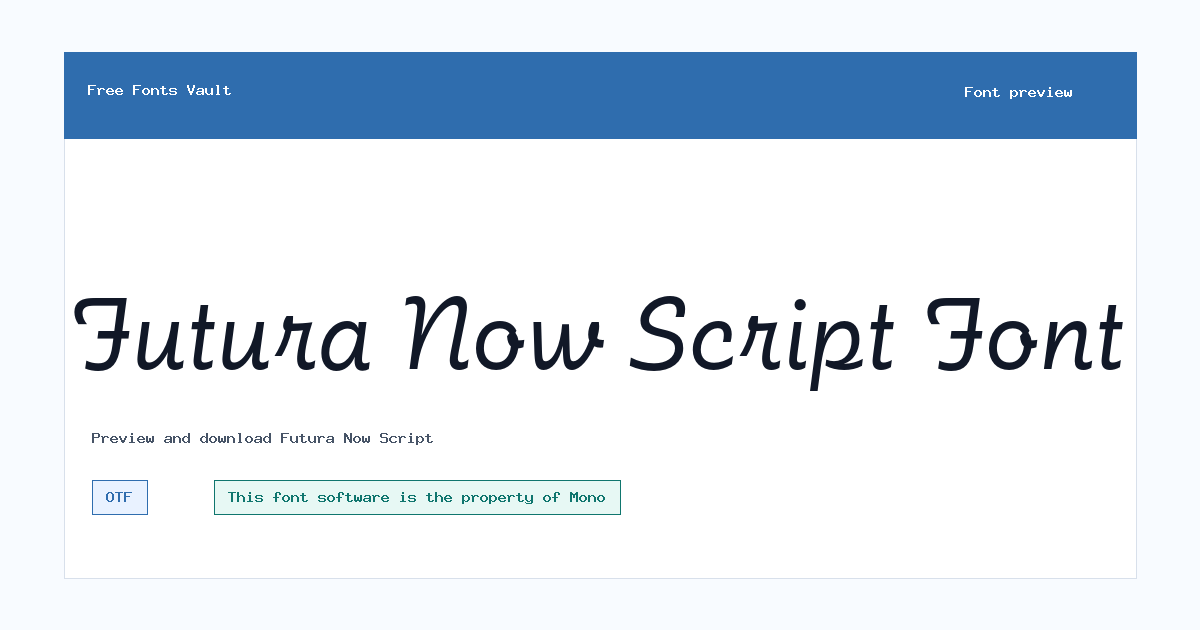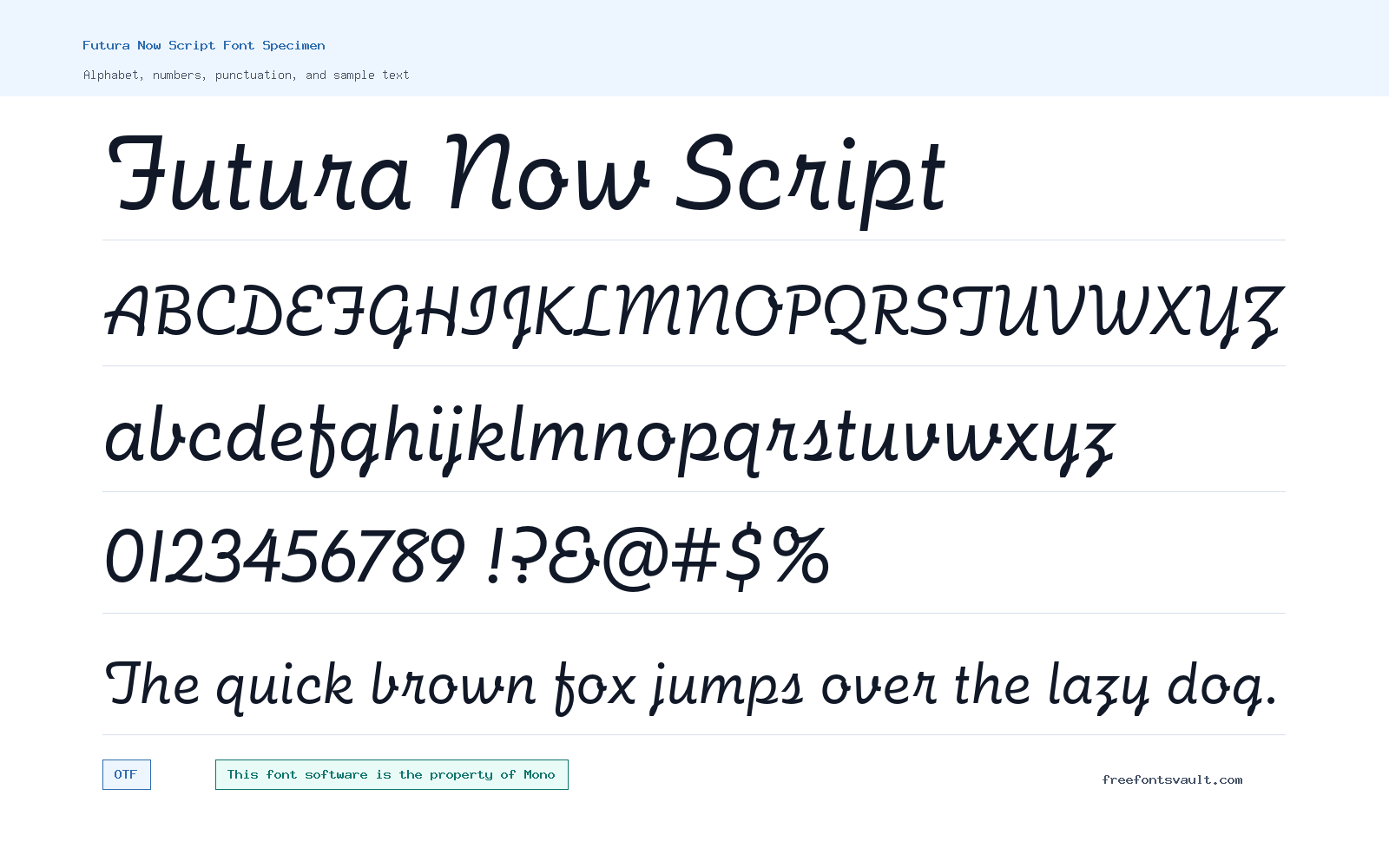
Futura Now Script
Futura Now Script Font
Futura Now Script is a smooth monoline script style connected to Monotype's Futura Now family. It keeps a handwritten feel while staying more controlled and geometric than many casual script fonts.
About Futura Now Script
Futura Now was created by Monotype as a modernized and corrected expansion of the Futura family, with attention to digital use, spacing, weights, and the broader history of Futura. The Script style brings back one of the less common Futura offshoots rather than copying the straight geometric sans look. Its letters have a steady stroke, soft curves, and a cleaner rhythm than brush or calligraphy fonts.
Use Futura Now Script when you want a warmer accent beside a structured sans serif. It can work well for elegant branding touches, invitation-style headings, packaging labels, editorial pull quotes, and short display lines. Keep it for names, titles, and brief phrases. For long paragraphs, pair it with a readable sans serif and let the script handle the expressive part.
• Monoline handwriting look that softens Futura's geometric character.
• Best used as a display or accent face rather than body text.
• Works well when contrasted with clean geometric sans text.
• Elegant brand accents
• Invitation-style headers
• Packaging and label typography
• Editorial pull quotes
• Short social graphics or display text
Futura Now Script is credited to Edwin Shaar, Steve Matteson, Juan Villanueva, and the Monotype Studio, with Monotype Imaging Inc. listed as the foundry.
Test your exact words in the preview before using the font. Script fonts can change feel quickly depending on capitals, spacing, and word length. Keep line lengths short, add generous breathing room, and avoid using all caps unless the preview proves it reads clearly. If you are matching it with the wider Futura Now family, let the script handle one expressive line and keep the supporting typography quieter. That contrast is where the style usually feels most intentional.
What type of font is Futura Now Script?
It is a monoline script font with a controlled handwriting style. It is softer than Futura's geometric sans styles but still feels clean and orderly.
Who designed Futura Now Script?
The credited names are Edwin Shaar, Steve Matteson, Juan Villanueva, and the Monotype Studio.
Where does it work best?
Use it for short display text such as logos, invitations, packaging, headings, and pull quotes. It is not the best choice for long body copy.